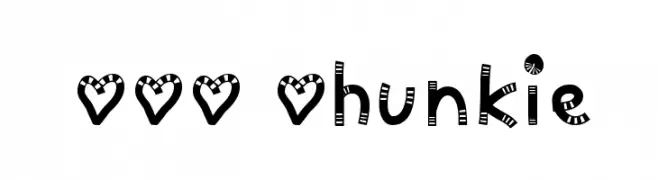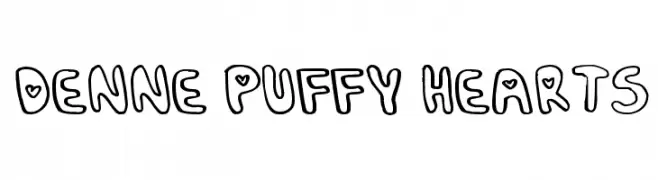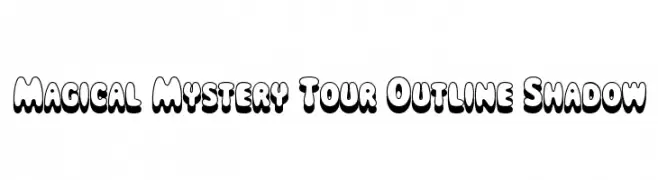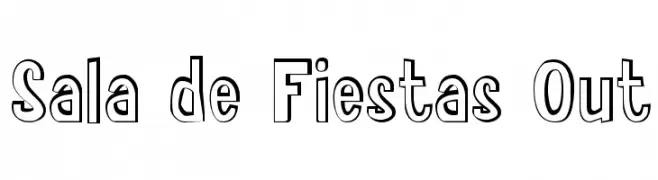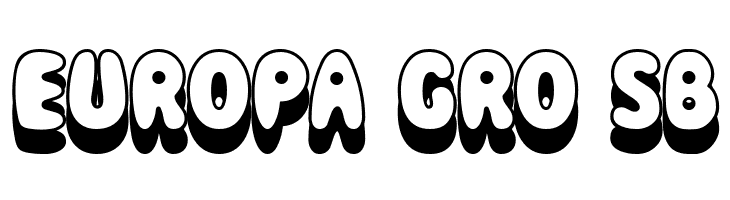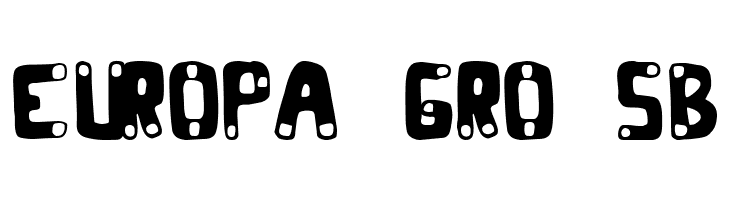
A whimsical, bubbly outline font with playful accents and a hand-drawn feel.
A playful, heart-themed decorative font with a hand-drawn feel.
A playful, hand-drawn font with irregular, whimsical characters.
A playful, bold font with rounded, bubbly characters ideal for fun and creative projects.
A playful, heart-themed decorative font with a hand-drawn style.
A bold, playful font with a three-dimensional outline and shadow effect.
A playful, hand-drawn font with a whimsical and artistic style.
A playful, bold outline font with uniform letterforms and a striking visual impact.
A bold, playful font with thick, rounded characters and a whimsical style.
A bold, playful font with rounded edges and circular cutouts, ideal for creative projects.